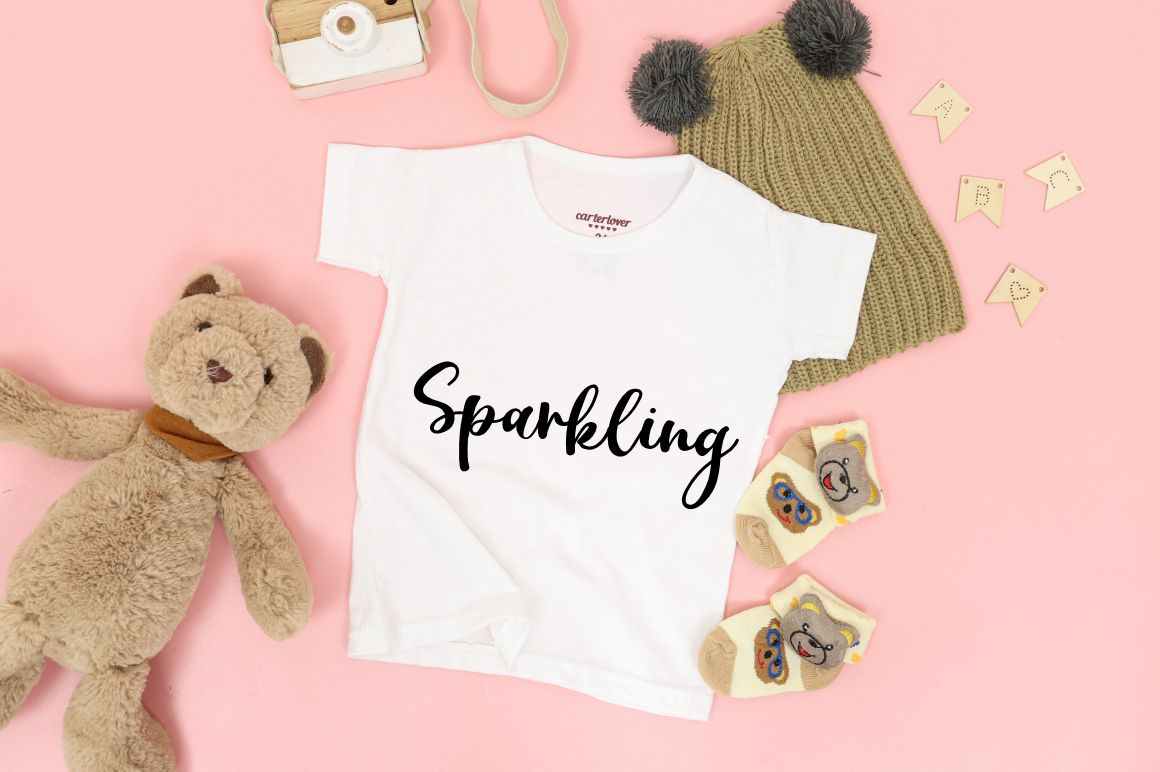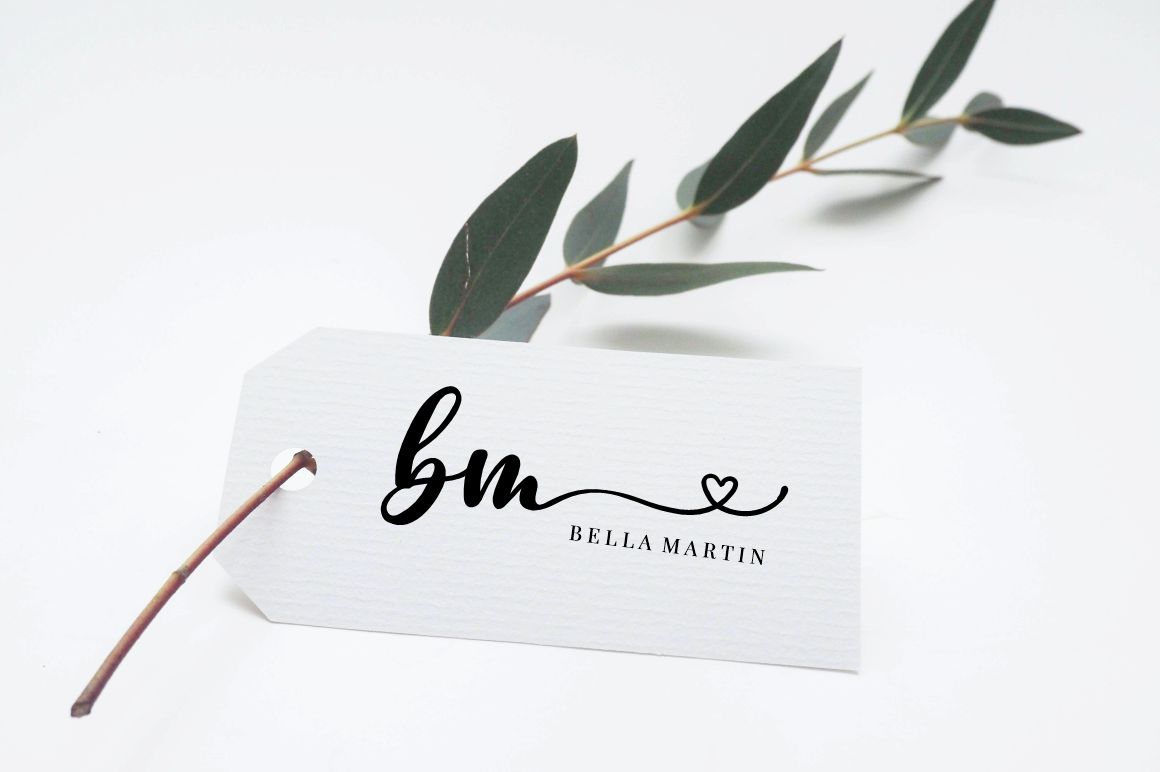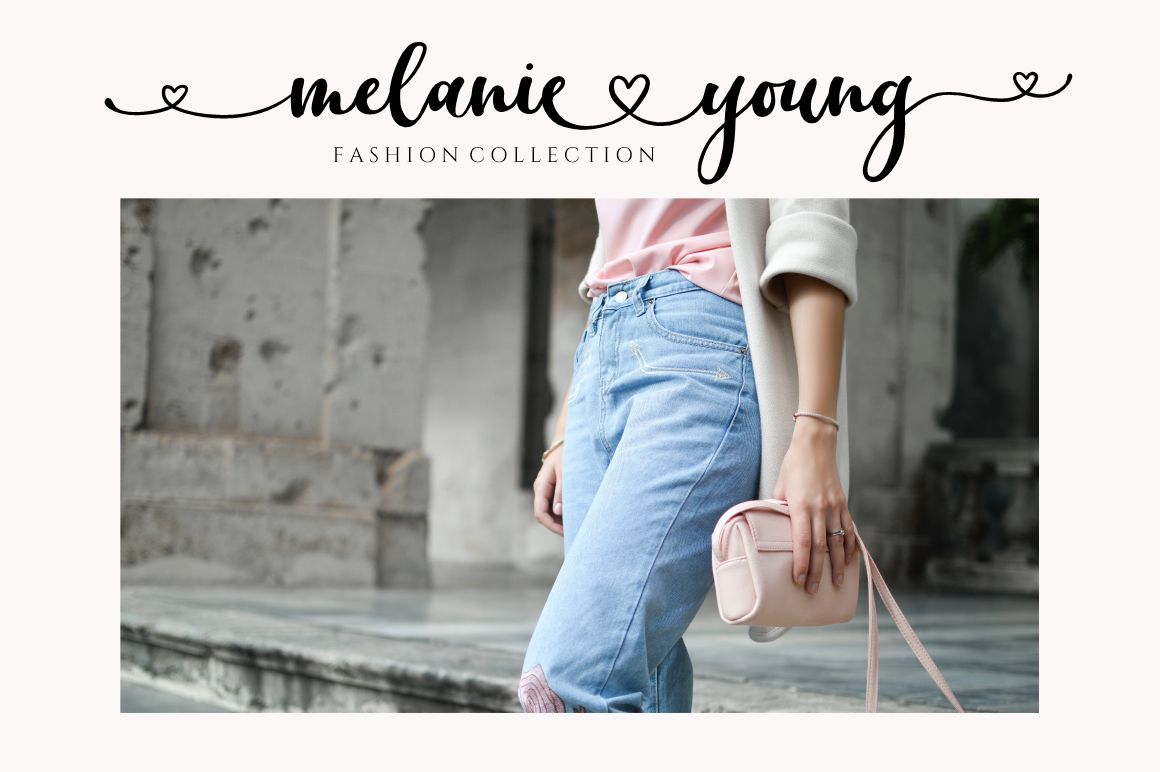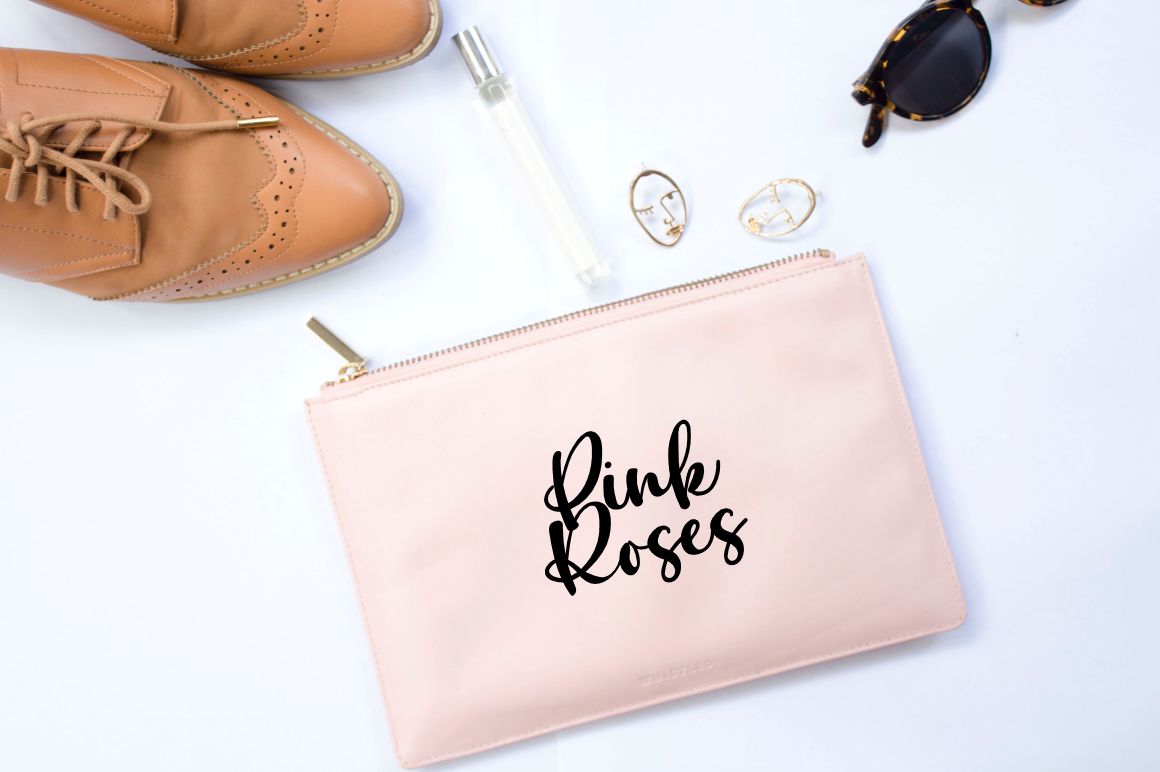
Chris Sharon Font
Chris Sharon Scrip Font
It’s a beautiful and handwritten style chic script. Equipped with 456 glyphs. This font is very suitable for use in gift card designs, t-shirt designs, quotes, logos, product brands, wedding invitation, or various similar designs.